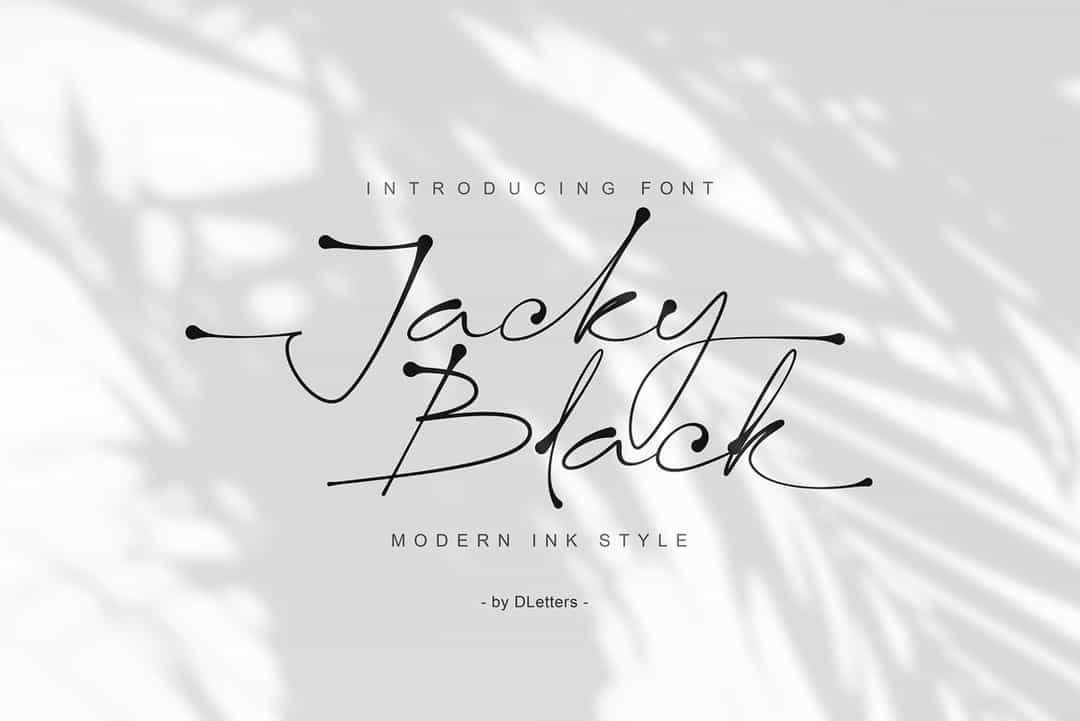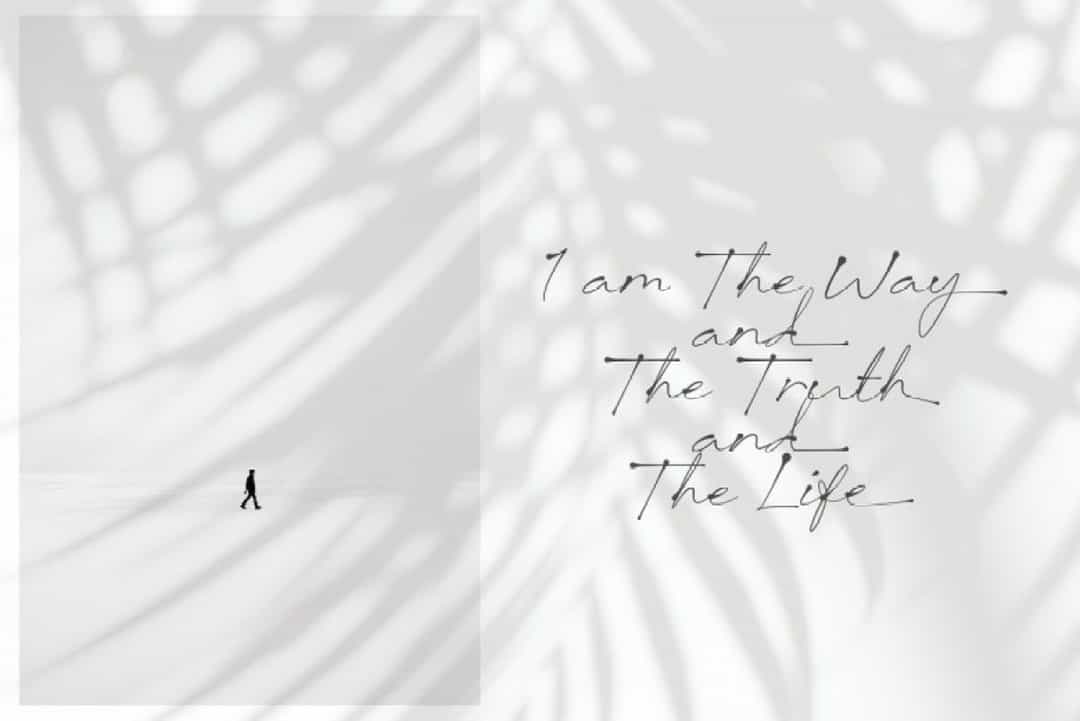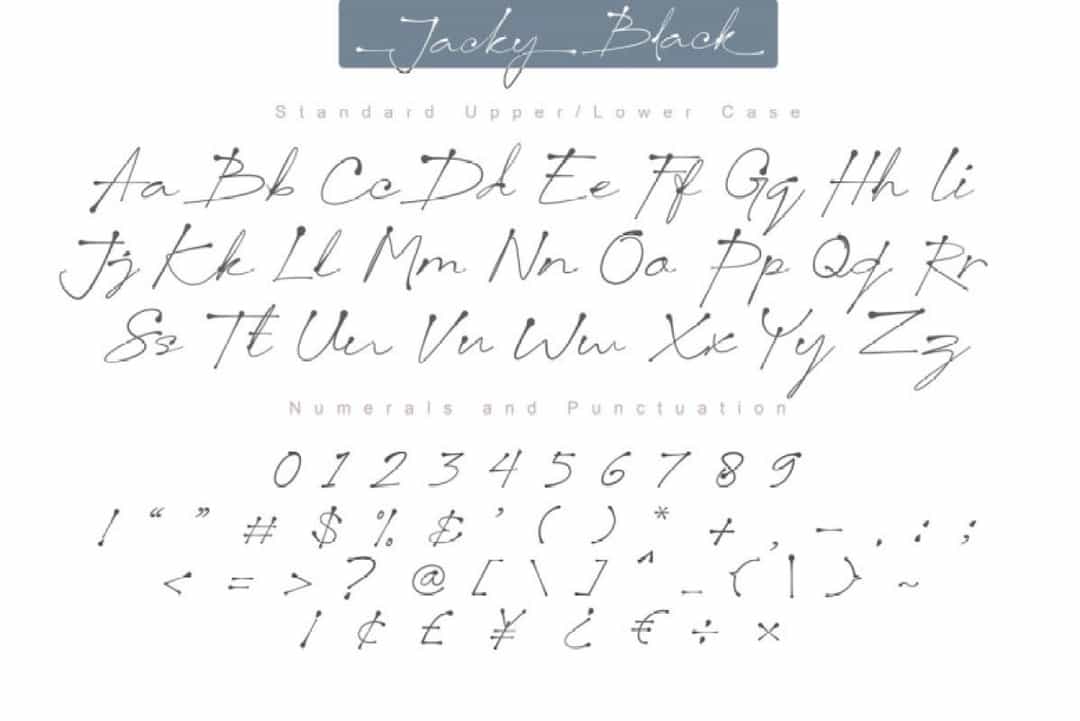
Jacky Black provides the handwritten ink-style letters with natural and elegant design; this lettering looks fabulous in any environment whether it is placed over the background or used as a bold headline!